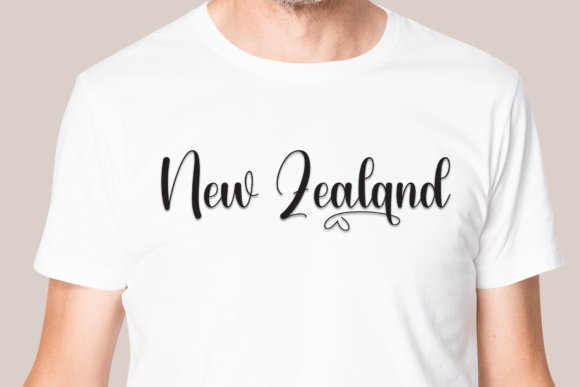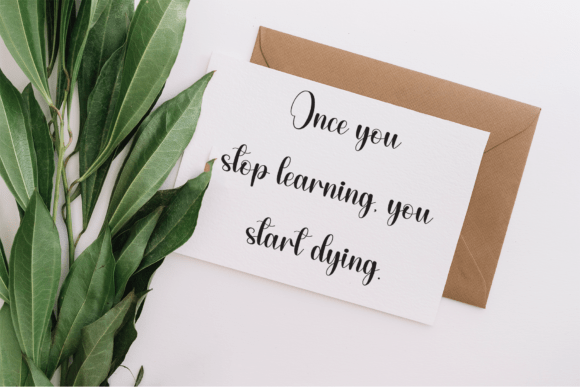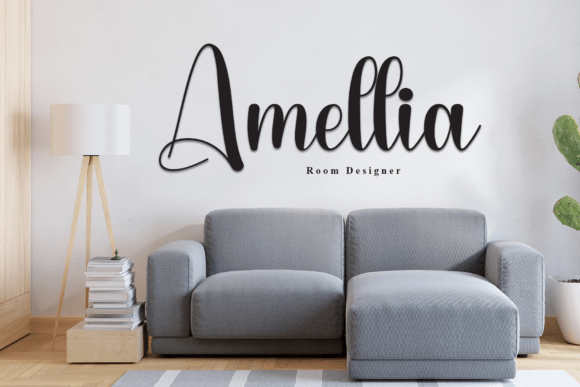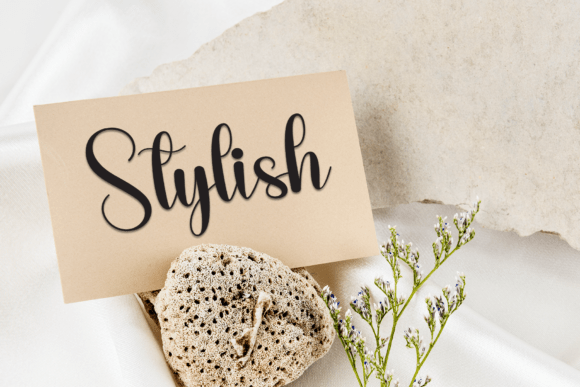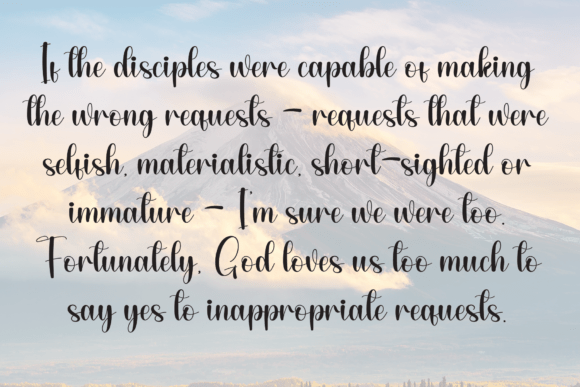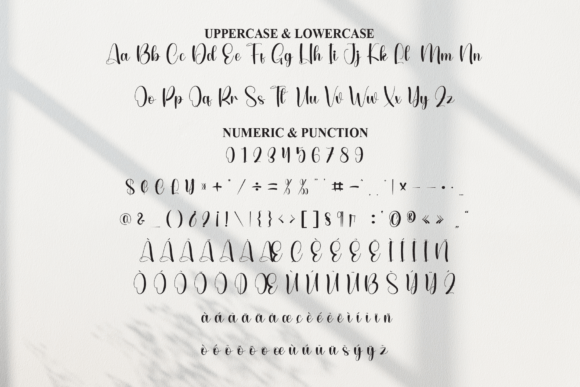
The Awesome Font: A Stylish Handwritten Script to Elevate Your Designs
I’ll never forget the time I was working on a wedding invitation project, and my client asked for a font that was both elegant and playful. I scoured the internet, trying out font after font, but nothing seemed quite right. That was until I stumbled upon the Awesome font. With its flowing curves and natural rhythm, it captured the essence of what I was looking for – a personal, charming touch that would make the invitation truly special.
I’ve had the pleasure of working with the Awesome font on several projects, and here’s what I think:
• ✨ Elegant and playful: The Awesome font strikes the perfect balance between sophistication and whimsy, making it perfect for a wide range of projects.
• ✅ Highly versatile: From invitations and branding to social media graphics, this font adapts seamlessly to different contexts.
• 💫 Beautifully crafted: The attention to detail in this font is impressive, with flowing curves and a natural rhythm that adds a personal touch to any design.
• 🤔 Limited use in body text: While the Awesome font is stunning in headings and titles, it may not be the best choice for body text due to its script nature.
• ⚠️ Some characters may require manual kerning: As with any font, you may need to adjust the kerning of certain characters to achieve optimal results.
3. Experiment with OpenType features, such as glyphs and stylistic alternates, to add visual interest to your design.
The Story Behind Awesome
The Awesome font was designed by a talented typographer who wanted to create a font that would capture the essence of elegance and playfulness. Inspired by the flowing curves of handwritten scripts, the designer crafted a font that would add a personal touch to any project. With its beautiful, natural rhythm and highly versatile design, Awesome has become a favorite among designers and crafters alike.
What type of projects is the Awesome font best suited for? The Awesome font is perfect for invitations, branding, social media graphics, and any project that requires a personal, charming touch.
Is the Awesome font suitable for body text? While the Awesome font is stunning in headings and titles, it may not be the best choice for body text due to its script nature.
Does the Awesome font come with OpenType features? Yes, the Awesome font includes OpenType features, such as glyphs and stylistic alternates, which can be accessed in compatible design software.